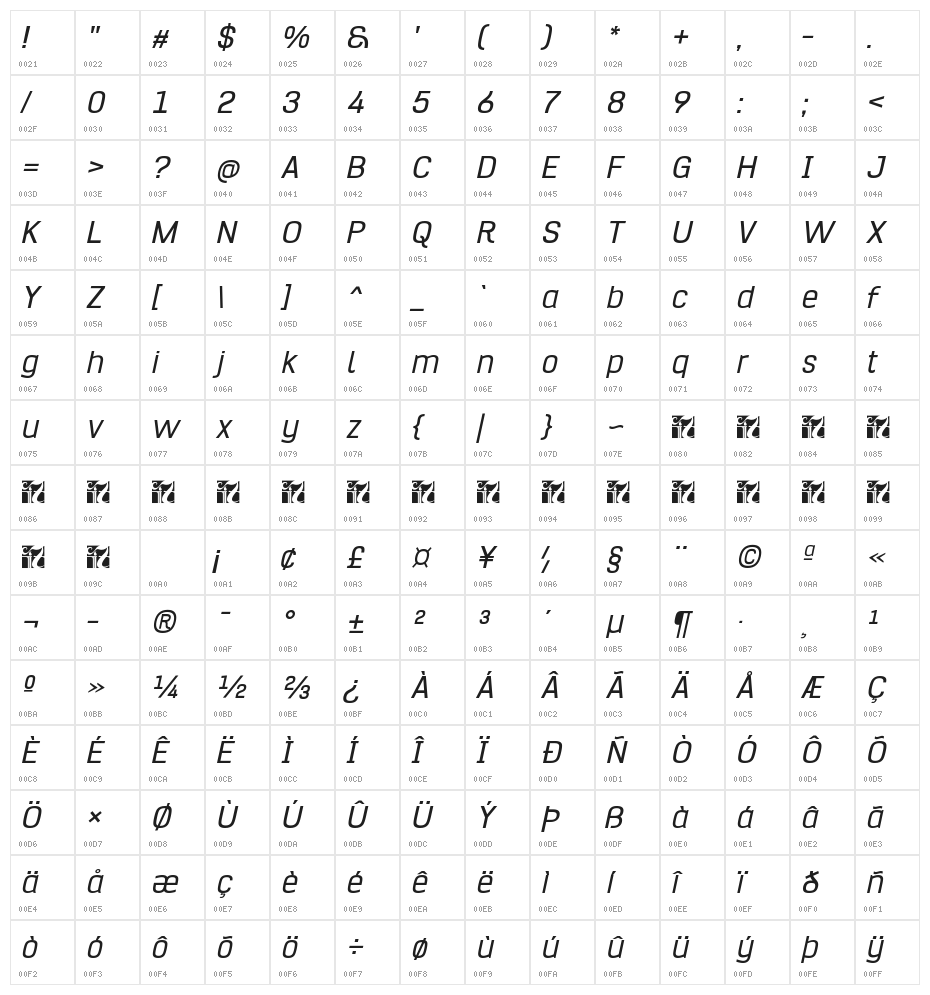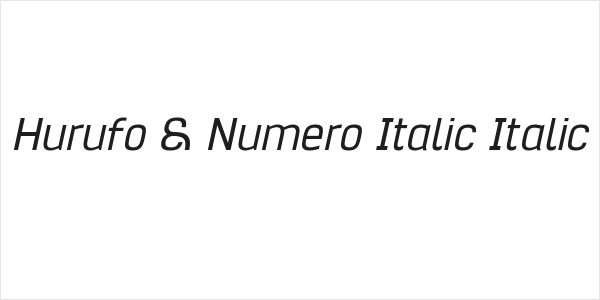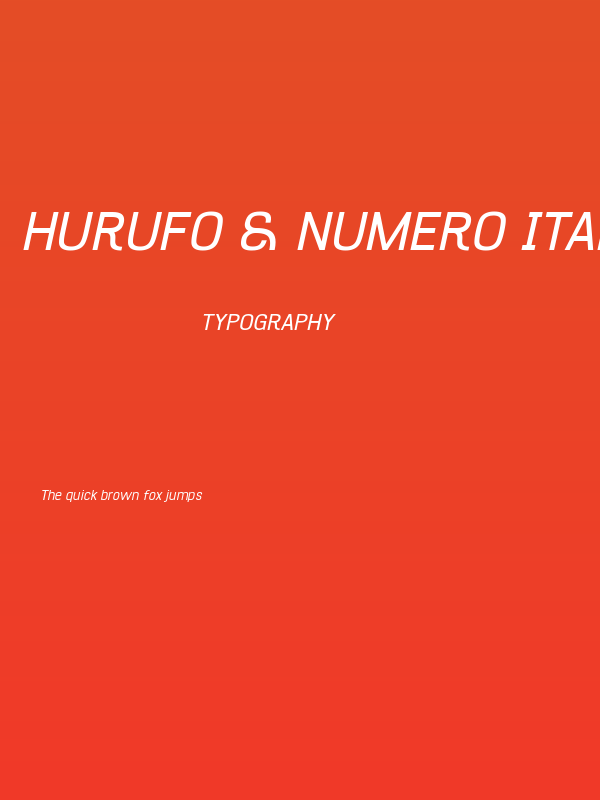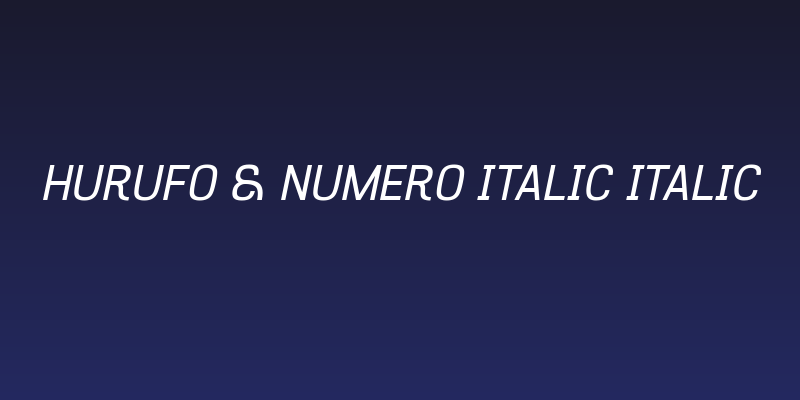
Hurufo & Numero Italic Italic Font
Hurufo & Numero Italic Italic Description
This font exhibits a sleek and modern design with a distinct italic slant, giving it a dynamic and forward-moving appearance. The characters are clean and streamlined, featuring smooth curves and a uniform stroke width that contributes to its contemporary aesthetic. The uppercase letters are bold and assertive, while the lowercase letters maintain a consistent flow, enhancing readability. The numerals are well-proportioned, aligning seamlessly with the overall style. Special characters are included, maintaining the font's cohesive look. This font is versatile, suitable for both digital and print media, and can effectively convey a sense of professionalism and modernity.